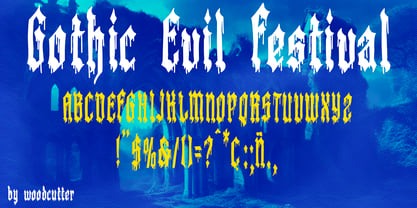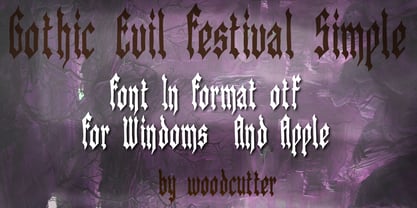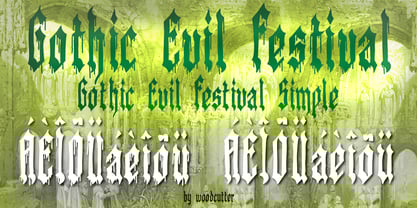
Gothic Evil Festival
by Woodcutter
The Gothic Evil Festival Font Family was designed by Jordi Manero and published by Woodcutter. Gothic Evil Festival contains 2 styles and family package options. More about this family
Gothic Evil Festival is a gothic medieval–inspired type family designed to summon a dark, ritualistic, and deeply terrifying atmosphere. Featuring both uppercase and lowercase letters with full accent support, its forms are rooted in classic gothic calligraphy, reinterpreted through an extreme and contemporary horror lens. Each character feels heavy, solemn, and dramatic, as if carved in stone or written with cursed ink during an ancient ceremony. The family consists of two clearly defined styles. Gothic Evil Festival is the most aggressive and expressive version: the letters appear to bleed, with irregular dripping effects flowing from their shapes. This style strongly evokes metal festival posters, horror album covers, and classic terror movie graphics. It delivers a visceral, brutal, and unsettling presence, perfect for projects that demand immediate impact and a fearless visual identity. The second style, Gothic Evil Festival Simple, presents a cleaner and more restrained interpretation of the same typographic structure. In this version, the gothic letterforms remain solid and powerful, but the dripping blood effects are removed, resulting in a more versatile and readable typeface while maintaining its medieval gothic soul. This family is ideal for dark music festivals, metal bands, horror-themed projects, video games, posters, and branding that requires a bold, uncompromising aesthetic. Gothic Evil Festival is not just a typeface—it is a visual incantation of darkness, power, and fear.